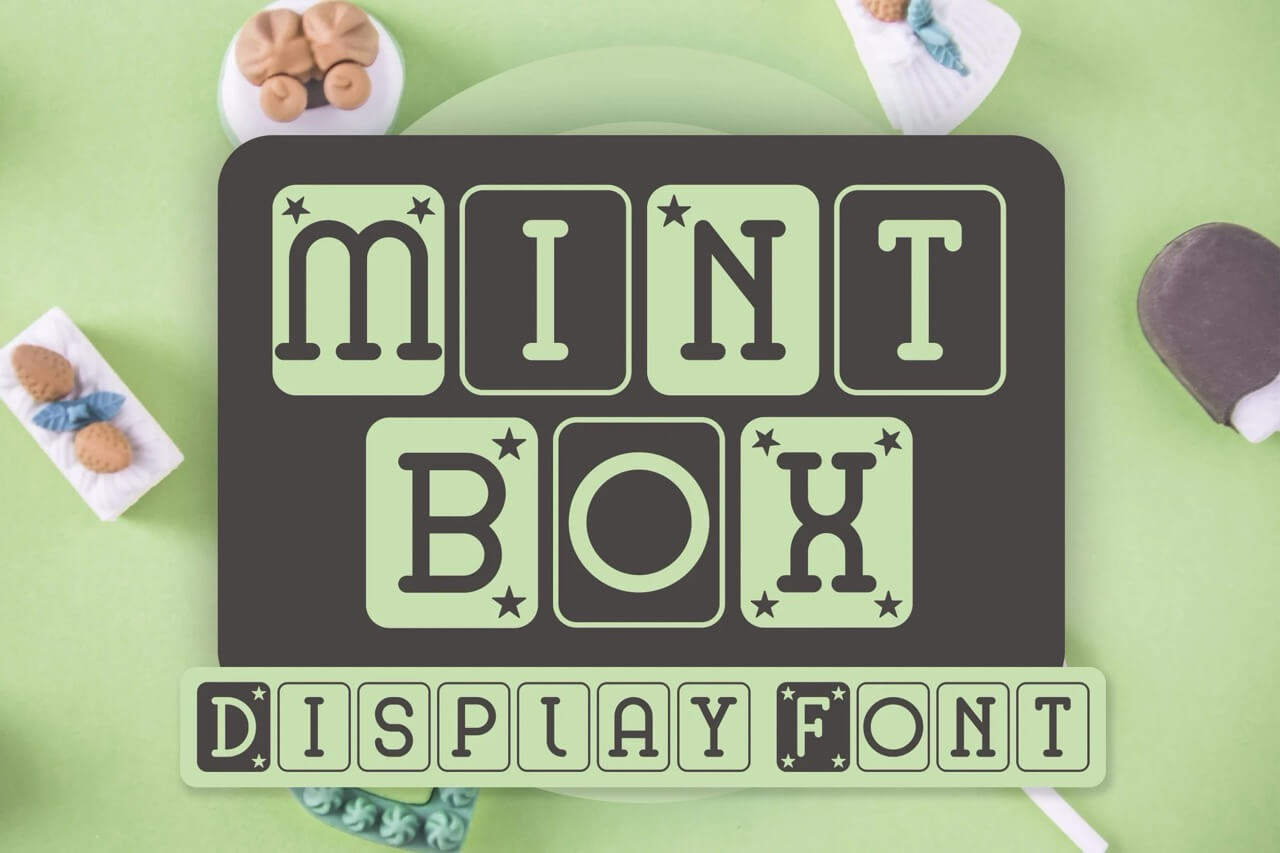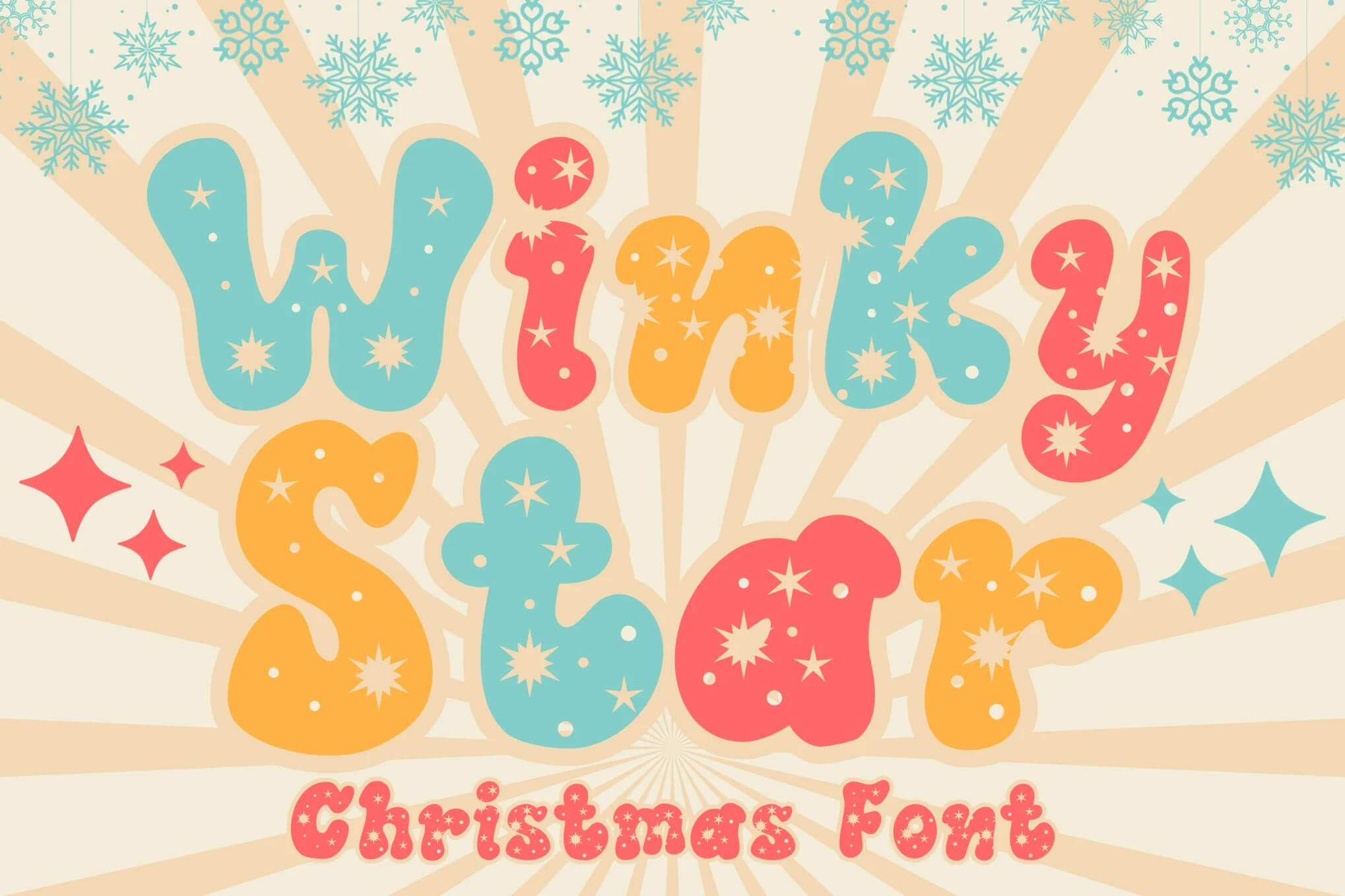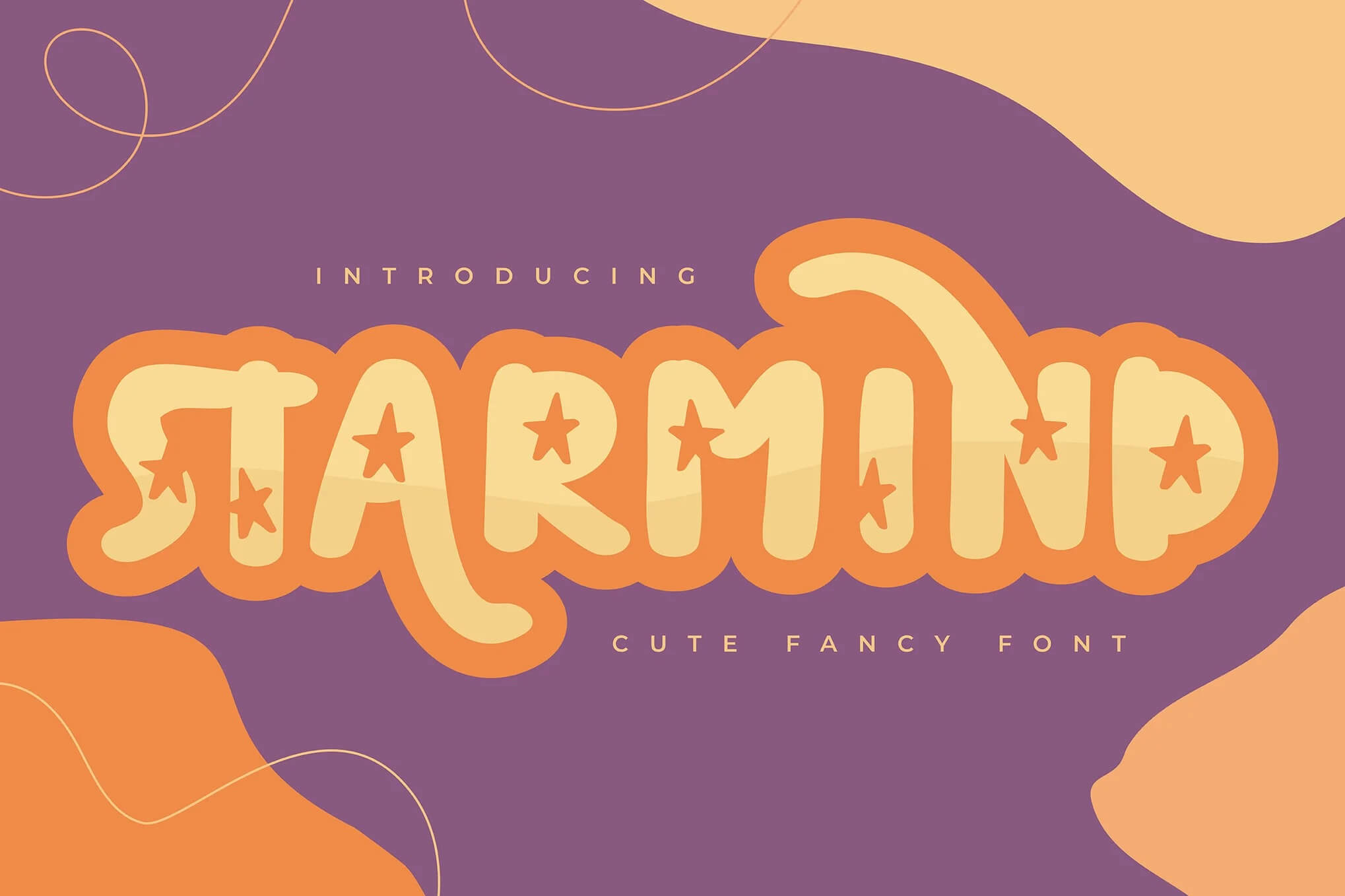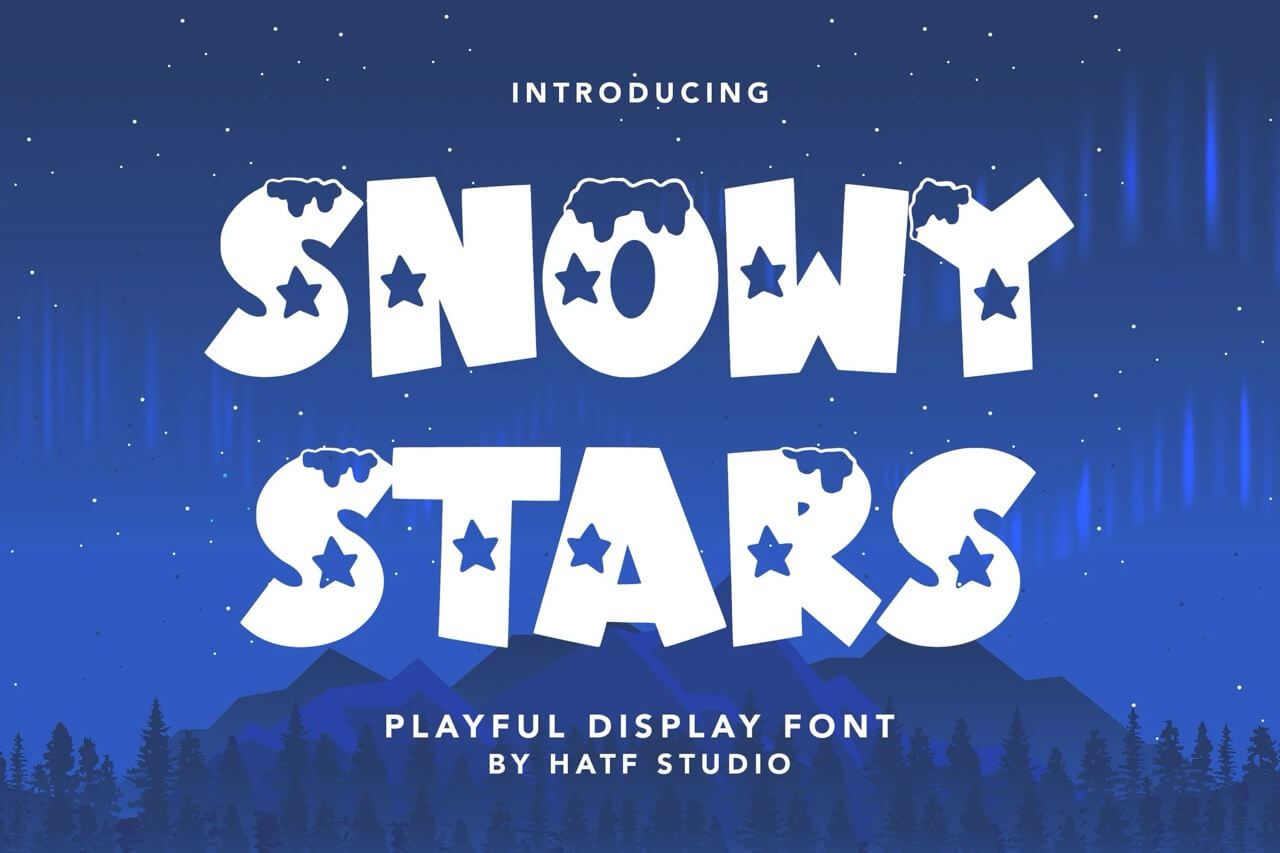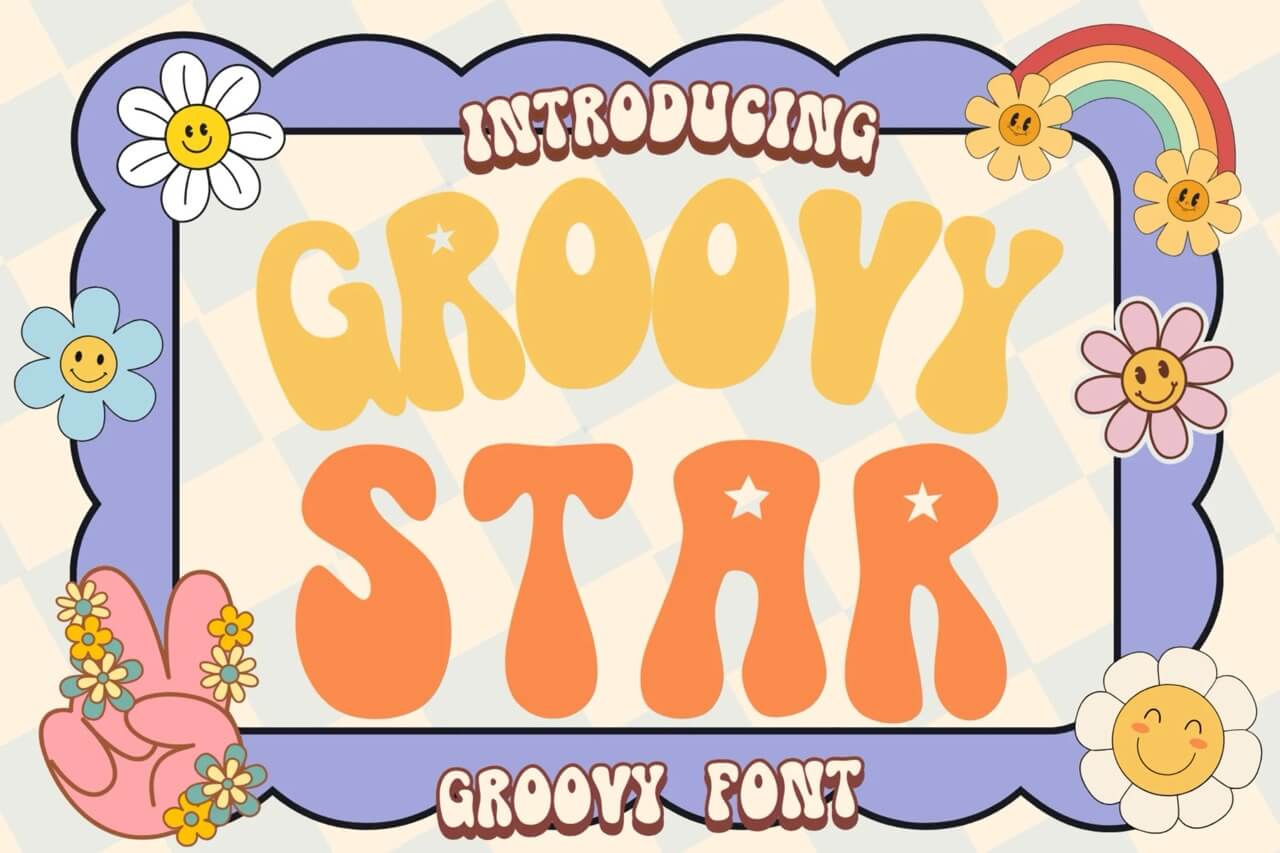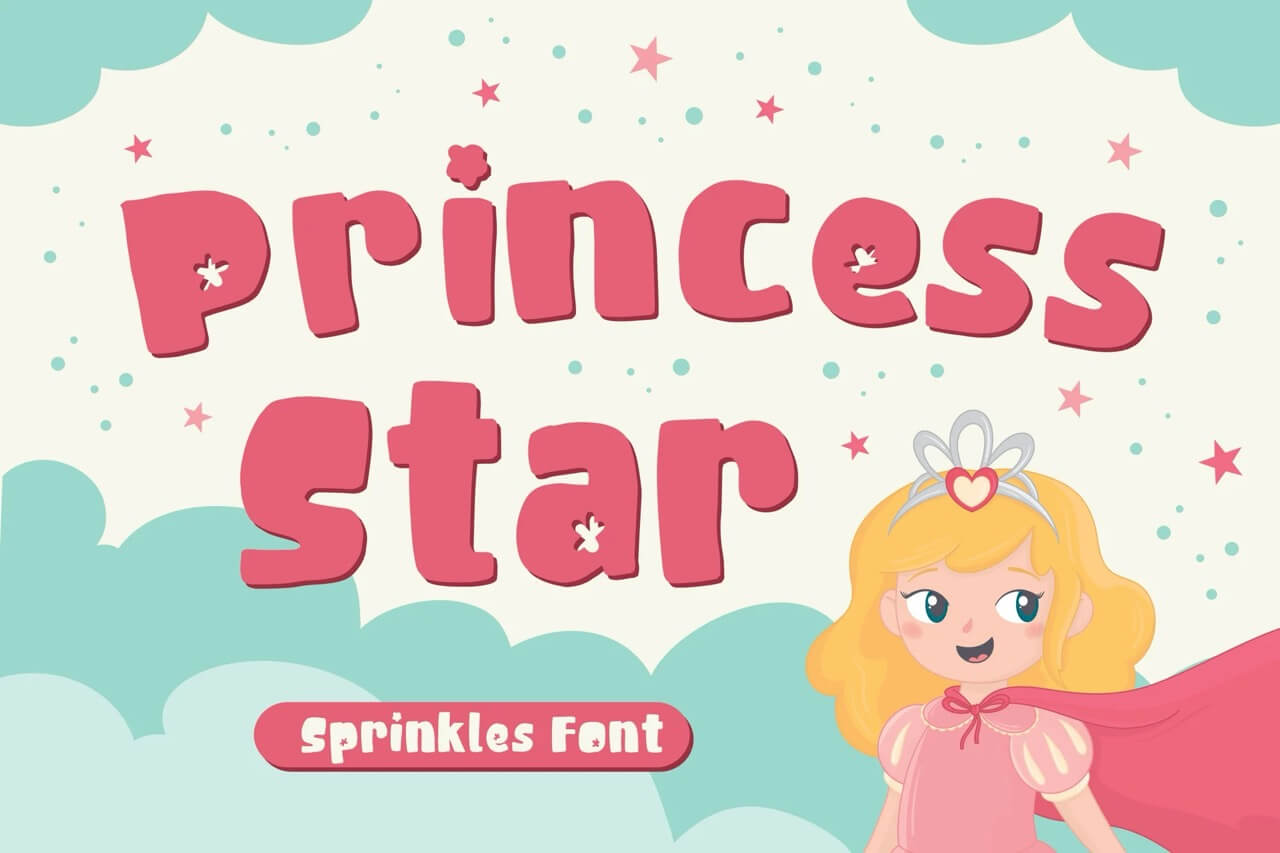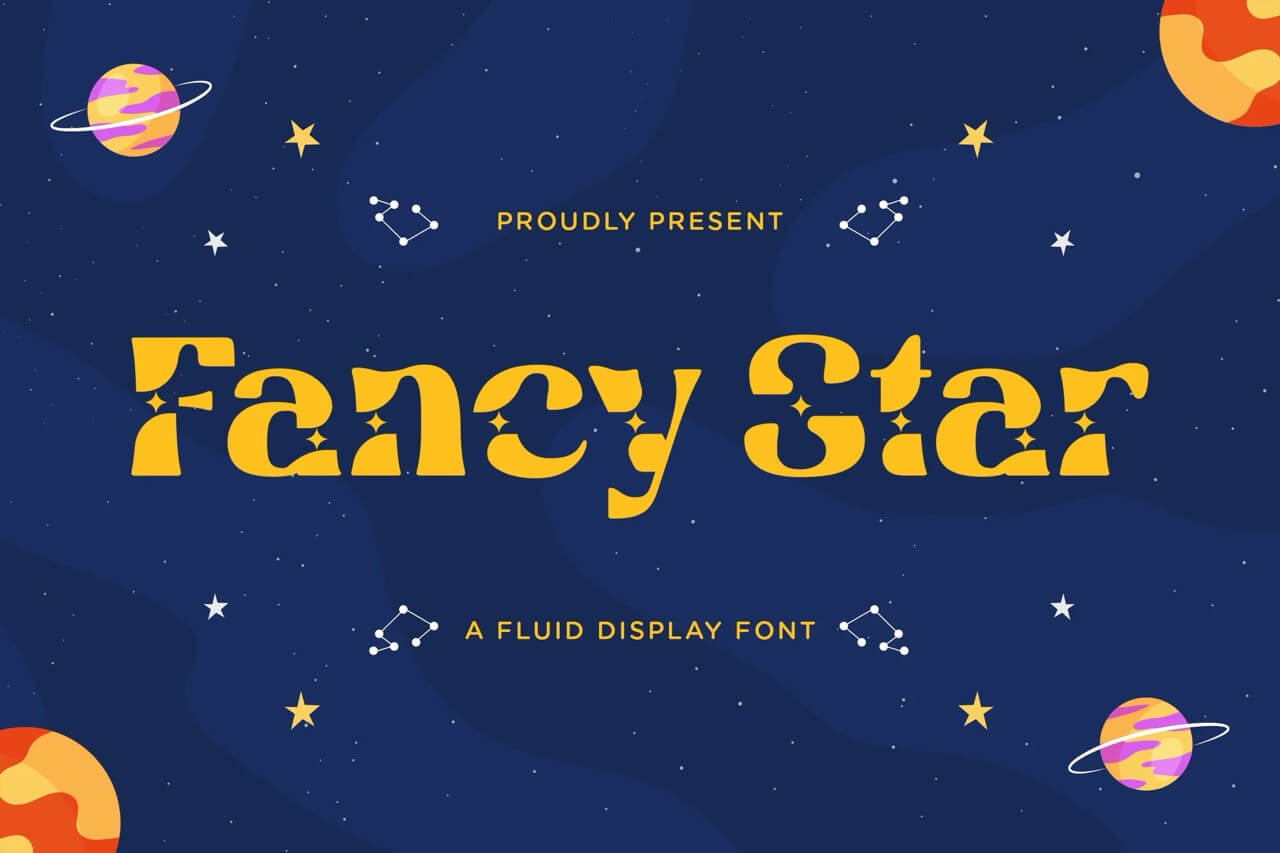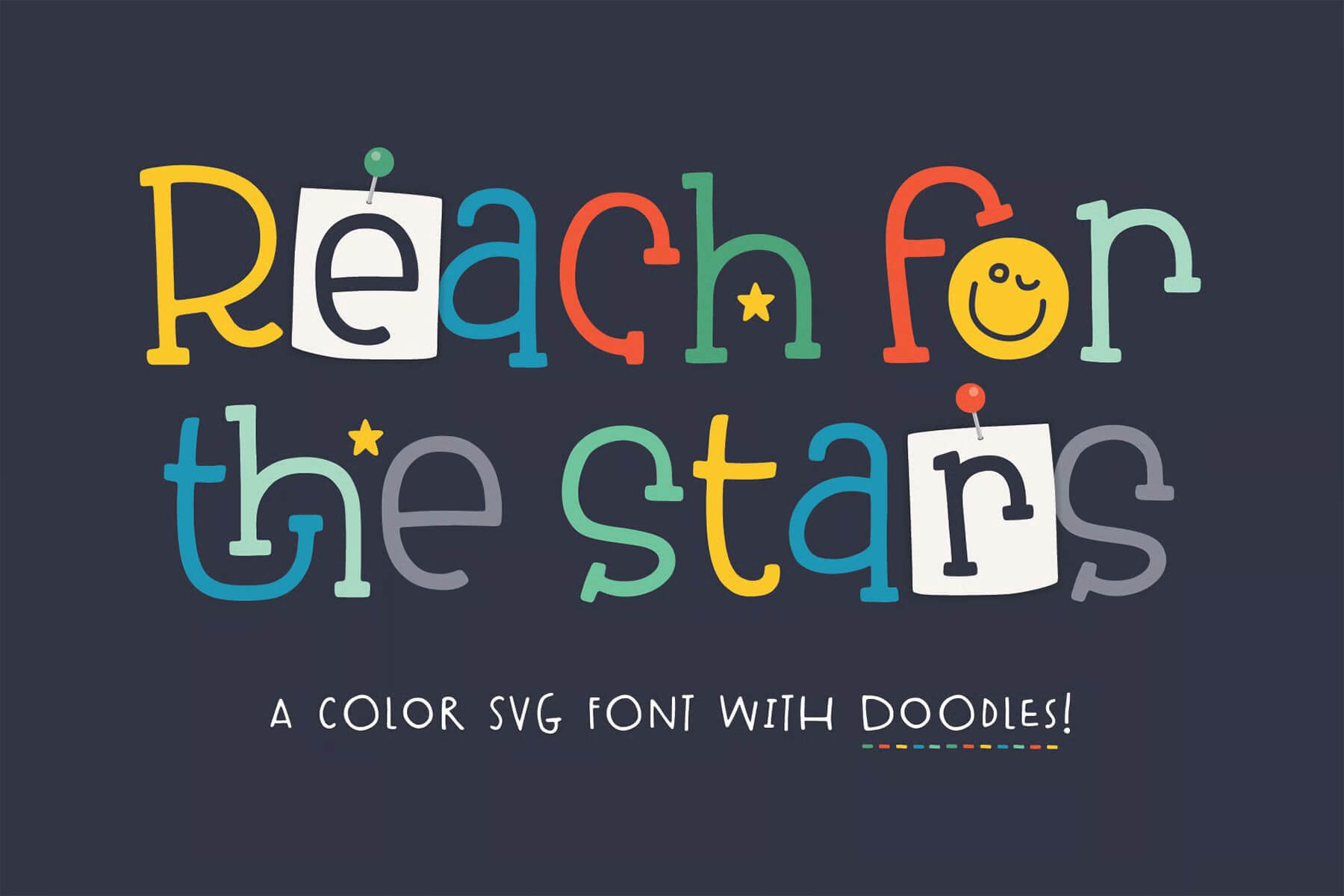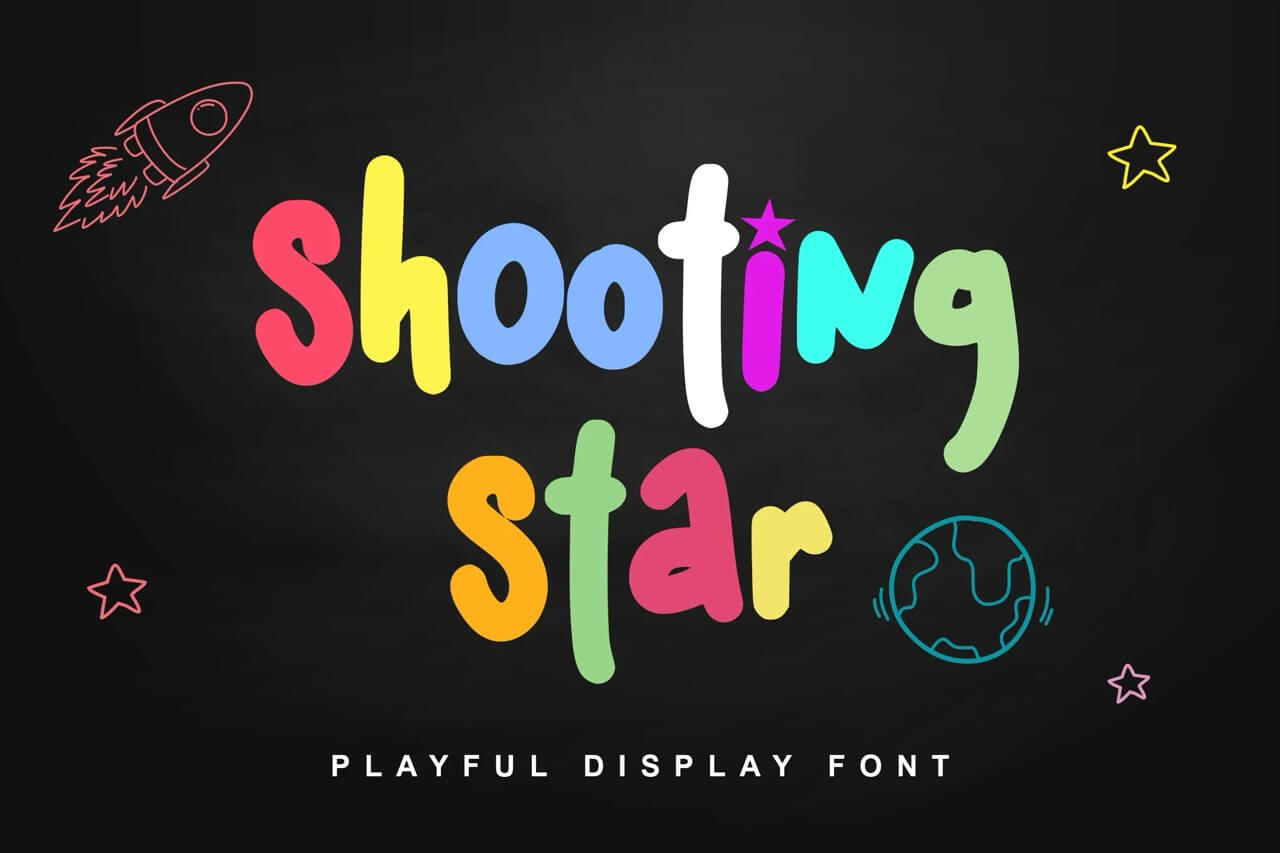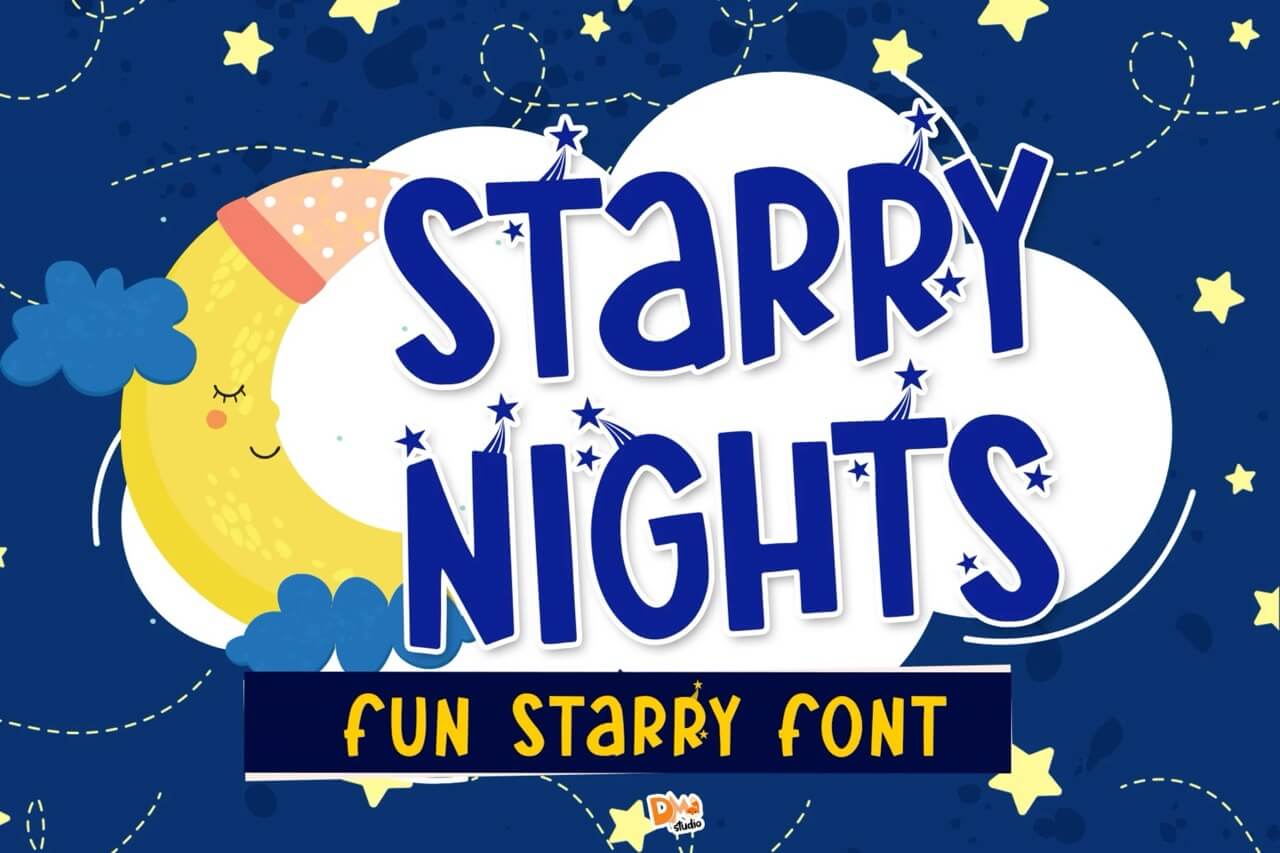
17 Fonts With Star Symbols That Actually Look Good
As a graphic designer, I’ve spent way too many hours hunting for that one font, you know, the kind with a little personality, a little sparkle, and a whole lot of charm.
Fonts with star details can be tricky to get right. Some look like outdated dingbats from the early days of Webdings, others just don’t hold up when dropped into a real design in Adobe Photoshop or Illustrator.
You want something that works, whether it’s for a poster, a logo, or a birthday invite. That’s why I put together this curated list of fonts with star symbols that actually perform well.
Each one here is versatile enough for both print and web design, and while some lean calligraphic or handwritten, others are bolder, more futuristic, or rooted in retro type design.
Whether you’re going for dreamy, playful, or bold and cosmic, these fonts bring that extra magic without the headache. Use them in packaging, headers, or illustrations. Let your typography do the sparkling.
1. Mint Box – Display Font
Mint Box is a playful all-caps display font with rounded corners, bold box styling, and fun star details. Great for cheerful headers, kids’ projects, or eye-catching packaging. It’s a quirky blend of handwriting and heavy serif charm, perfect when you want a design that feels fun, friendly, and just a little bit magical.
2. Winky Star
Winky Star is a whimsical, decorative font with stars in letters that feel like candy confetti. Designed with playful curves and a hint of calligraphy, it’s ideal for invites, branding, and anything needing a visual sparkle. It’s one of those fonts that makes typography feel like playtime.
3. The Unicorns Font
The Unicorns Font is pure magic in typeface form: soft, rounded, and sprinkled with stardust. It’s a dreamy sans-serif, perfect for designs that lean into pastel color palettes and unicorn vibes. Drop this into Illustrator or use it for posters, it shines everywhere.
4. Starmind – Cute Fancy Font
Starmind feels like a blend of cursive elegance and cosmic whimsy. It’s got swirly ligatures and star-tipped swashes that work well on both digital and print. The kind of font that’s born for greeting cards, quotes, or those Pinterest-perfect wall prints.
5. The Space Font
This clean sans-serif font isn’t shy about its love for the cosmos. Sprinkled with star symbols and subtle celestial shapes, The Space Font is futuristic but readable, ideal for kids’ designs, bold packaging, or your next moon-themed type project.
6. Christmas Font
This one brings serious star power with its festive curls and shining asterisks. Perfect for Times New Roman-rejecting holiday cards or blog graphics that need to feel cozy and spirited. Looks amazing on a printable label or digital planner layout.
7. Snowy Stars
Snowy Stars is your go-to handwritten typeface with adorable star details. Imagine doodling on a snowy window while sipping cocoa. This font brings that energy to everything from Christmas merch to dreamy Instagram stories. It’s like a handwritten Unicode love note to winter.
8. Groovy Star
If wood type and 1970s graffiti fonts had a baby, it’d be Groovy Star. It’s chunky, retro, and ready to dance on posters, album art, or vintage-style T-shirts. With stars baked into its bubbly letters, this font is bold, nostalgic, and full of flair.
9. Princess Star
Hand-drawn with a dose of glitter and sparkle, Princess Star is pure visual sugar. Perfect for children’s books, birthday invites, or cute quote posts. Its star elements and bubbly form fit beautifully into light-hearted design work that leans pastel.
10. Fancy Star – A Fluid Display Font
Fancy Star walks the line between elegance and fun. With its swooping curves and star-shaped flourishes, it’s a font with stars in letters that actually looks refined. Works beautifully in luxe branding or celestial-themed packaging.
11. Reach for the Stars
A serif-meets-scribble vibe, this font screams teacher resource or storybook cover. The ligatures are adorable, and the little stars feel like they belong next to an inspiring quote or bedtime poem. It’s what happens when alphabets daydream.
12. Shooting Star
Shooting Star is all about movement, its monoline script style feels like handwriting in motion. Add a few stars in the background and you’ve got a design that feels personal, playful, and full of joy. Ideal for planners, journals, or handmade crafts.
13. Starry Nights
This is that font with star symbols that doesn’t feel overdone. With clean lowercase forms and decorative uppercase letters, it’s well-balanced for both kids’ projects and minimal DIYs. Imagine a font that lives somewhere between Arial and a dreamy blackletter, but friendlier.
14. Ultimate Star
Ultimate Star is comic book energy in font form. It’s thick, loud, and knows how to have fun. Whether it’s a sticker pack or bold header text, this font hits with heavy strokes and star accents that really pop.
Let Your Fonts Do the Sparkling
When you’re choosing a font, whether it’s TrueType or OpenType, cursive or heavy, remember this: the best ones aren’t just decorative. They communicate. These fonts with stars? They shine because they’ve got style and substance.
So next time you’re designing in Illustrator, laying out a logo, or just making a fun graphic for the internet, pick a font with stars in letters that actually supports your message. Let the type do what it’s born to do: connect.